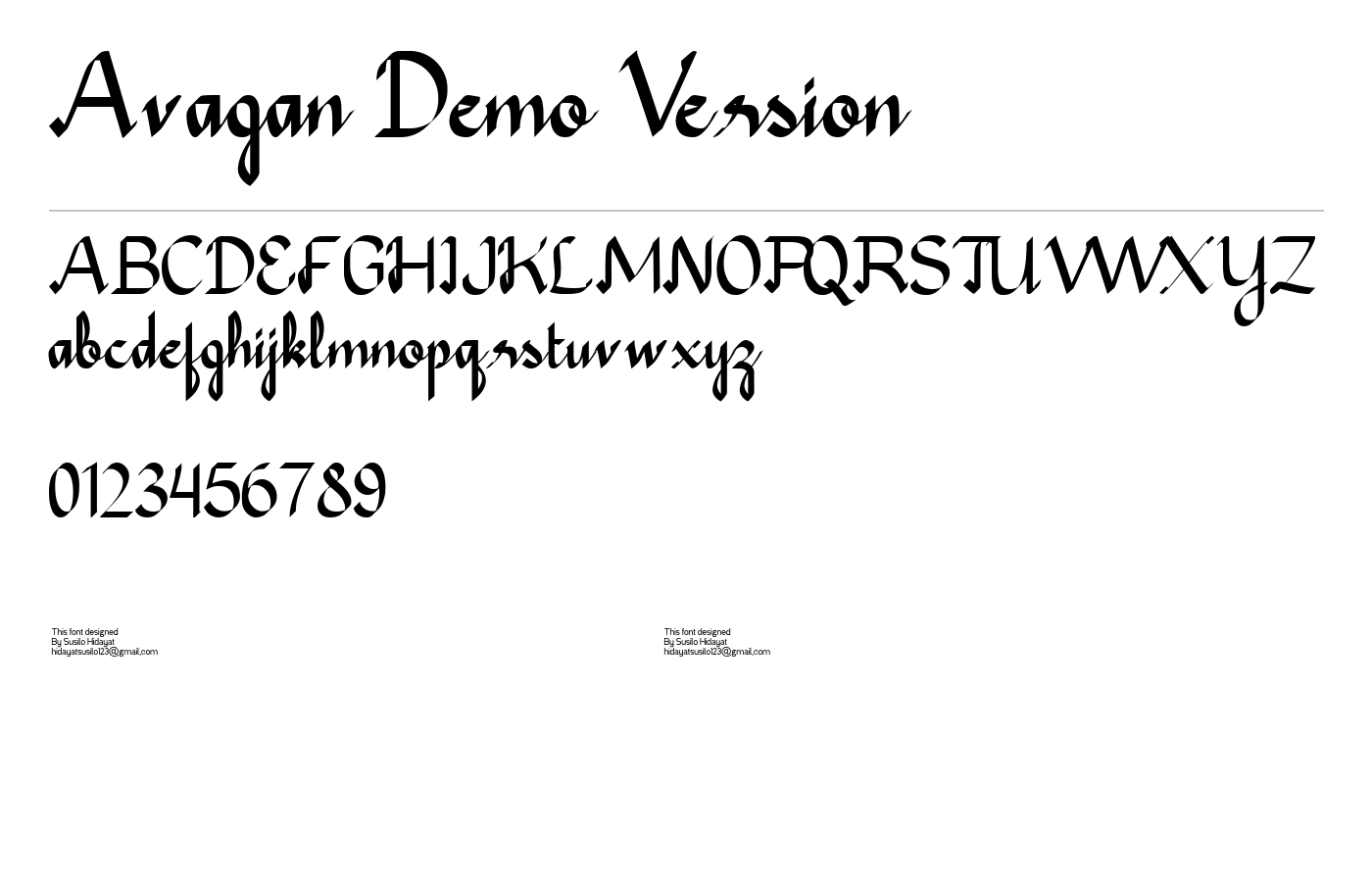
Avagan is a distinctive serif font with a medieval, calligraphic flair characterized by sharp, angular strokes and pronounced contrasts between thick and thin lines. Its unique letterforms feature decorative elements that evoke a vintage, gothic aesthetic, making it ideal for projects that seek a dramatic, historical, or fantasy-inspired feel. This font works best in headlines, logos, and creative designs where a bold and artistic statement is desired.
Avagan Font
About Avagan Font